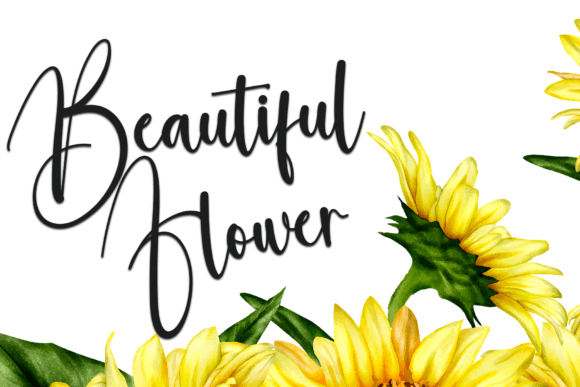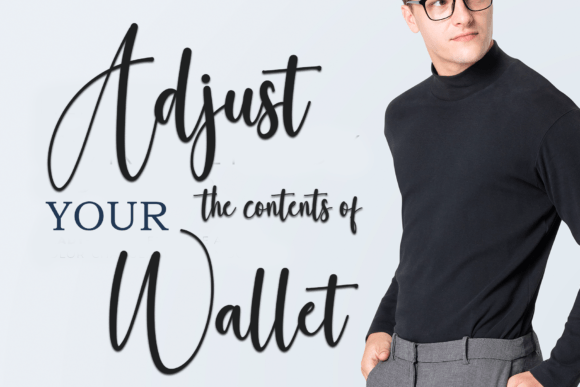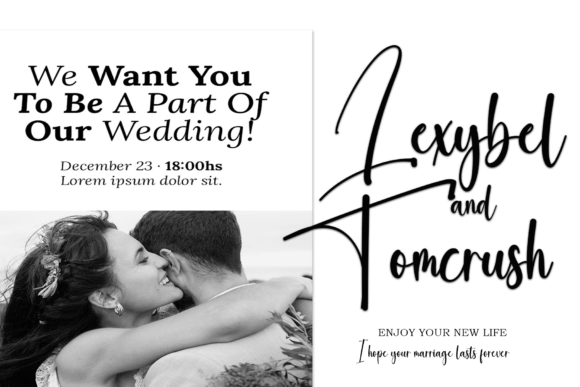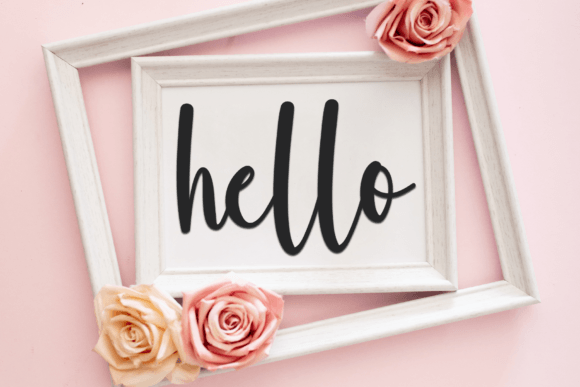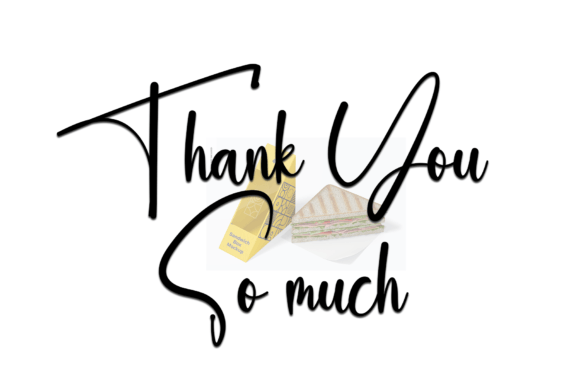
Sandwich Font
About Sandwich Font
“Sandwich” is an exquisite handwritten font distinguished by its elegant and flowing lines. This font possesses a unique charm that can elevate your work, whether it’s applied to product packaging, branding projects, magazine covers, social media graphics, wedding materials, or any context where you want to convey words with grace and sophistication.
Its versatility allows it to be a valuable asset for a wide range of design applications:
**1. Product Packaging:** “Sandwich” can elevate the visual appeal of product packaging, making it alluring and unforgettable to consumers. Its elegant lines convey a sense of quality and sophistication, making it an excellent choice for premium products.
**2. Branding Projects:** When used in branding, “Sandwich” adds a touch of elegance and uniqueness to your visual identity. It can help your brand stand out and create a lasting impression.
**3. Magazine Covers:** “Sandwich” can create captivating and stylish magazine covers that draw readers in with its graceful letterforms.
**4. Social Media Graphics:** Whether you’re creating posts, stories, or advertisements on social media, this font can infuse your designs with a trendy and sophisticated vibe.
**5. Wedding Materials:** For weddings and special occasions, “Sandwich” can lend an air of elegance to invitations, place cards, and other printed materials, making the event even more memorable.
**6. Expressive Typography:** The font’s curvy lines and elegant style allow it to be a great choice for expressive typography, whether you’re designing posters, quotes, or artwork.
In summary, “Sandwich” is more than just a font; it’s a creative tool that can add elegance and sophistication to your projects. Its graceful lines and timeless charm make it a valuable asset for designers and individuals looking to create designs that truly stand out.